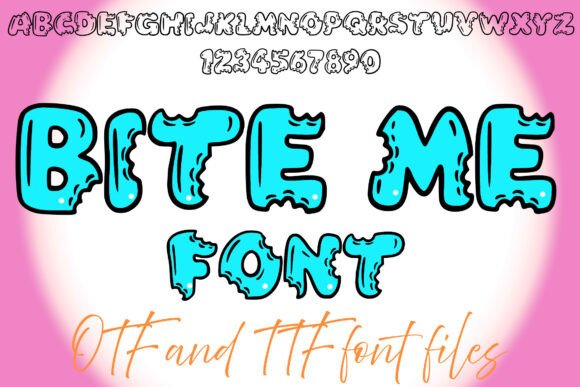
The Bite Me Font: A Fun and Feisty Typeface for Your Designs
I’ll never forget the time I was working on a Halloween-themed project for a kids’ party, and I just couldn’t find the right font to capture the playful, spooky vibe. The client wanted something that was both fun and a little bit quirky, but everything I tried seemed either too boring or too creepy. That’s when I stumbled upon the Bite Me Font, and it was love at first sight! 💕
This bold, playful typeface has letters that look like they’ve been nibbled on, giving it a unique and eye-catching charm. It’s perfect for kids’ designs, snack packaging, quirky logos, or Halloween graphics with a humorous twist. In this article, I’ll share my honest review of the Bite Me Font, provide a practical guide on how to use it, and explore similar fonts and alternatives.
My Honest Review of Bite Me Font
- ✅ Unique and playful design that’s sure to grab attention
- ✅ Perfect for kids’ designs, snack packaging, and quirky logos
- ✅ Works well for Halloween graphics with a humorous twist
- ✅ Easy to read, even in larger sizes
- ⚠️ May not be suitable for formal or professional designs
- ⚠️ Limited use for body text, as it’s best used for headlines or titles
The Bite Me Font was designed by a team of creatives who wanted to create a fun and playful typeface that would add a touch of whimsy to any design. Inspired by the imperfections of handmade crafts and the playfulness of childhood, Bite Me Font is a unique and eye-catching font that’s sure to bring a smile to your face.
Q: Is Bite Me Font suitable for body text?
A: No, Bite Me Font is best used for headlines or titles, as it may be difficult to read in larger blocks of text.